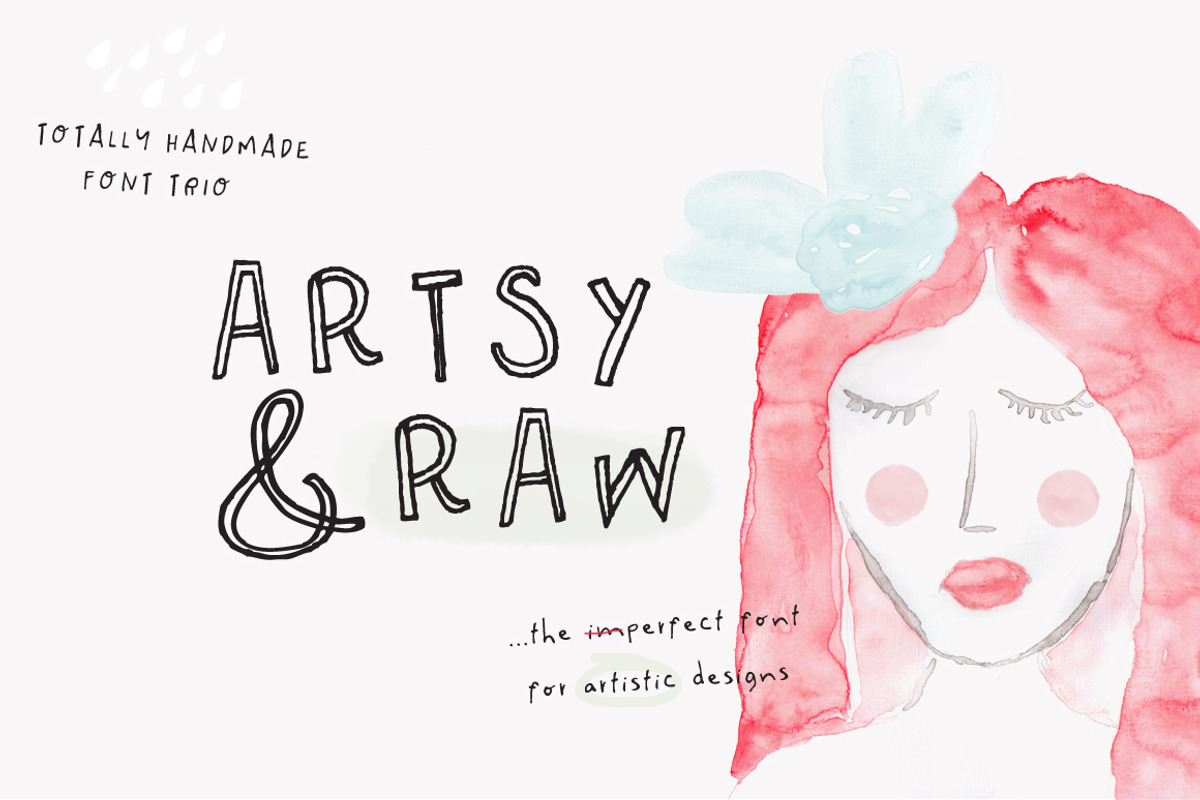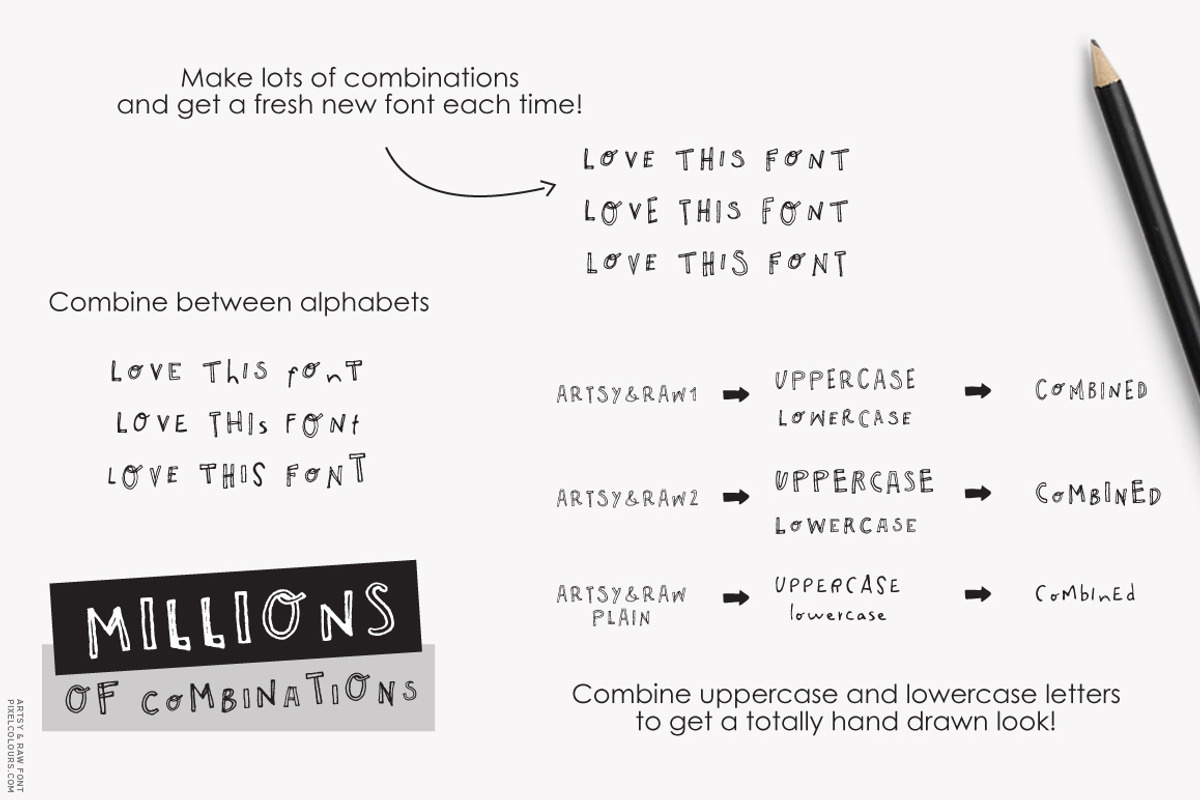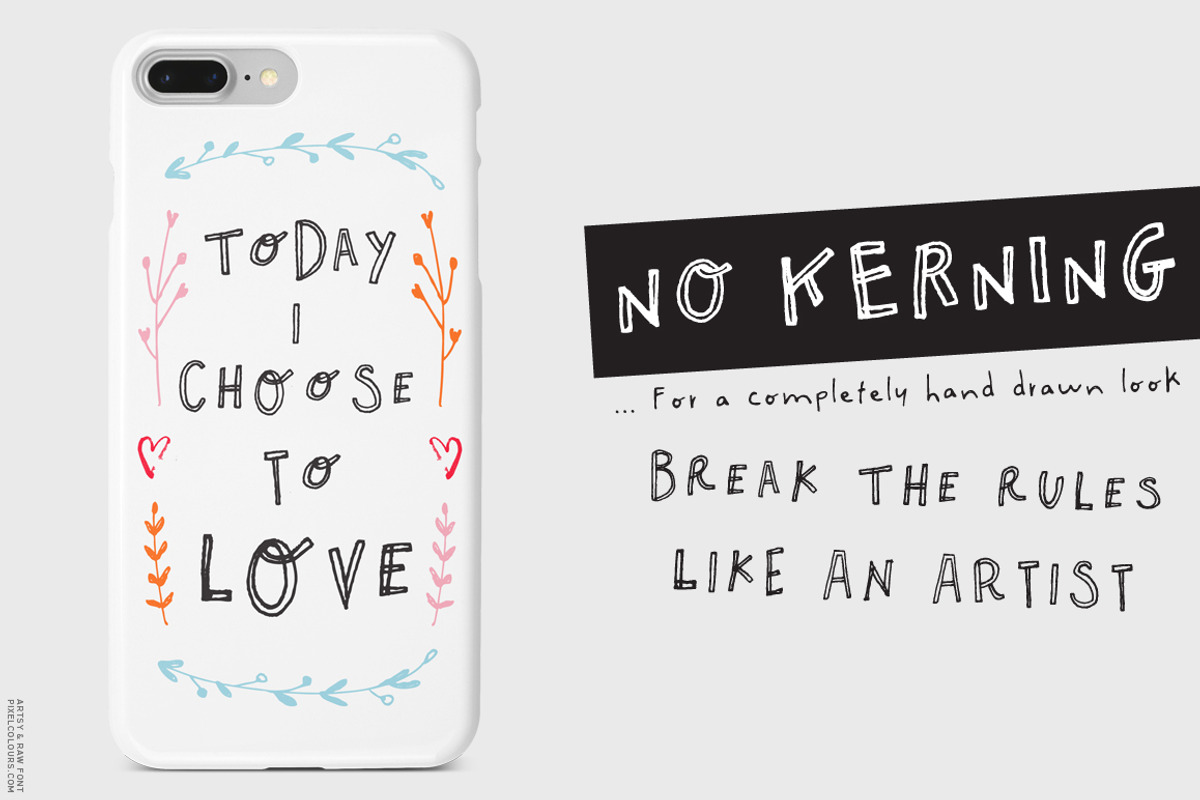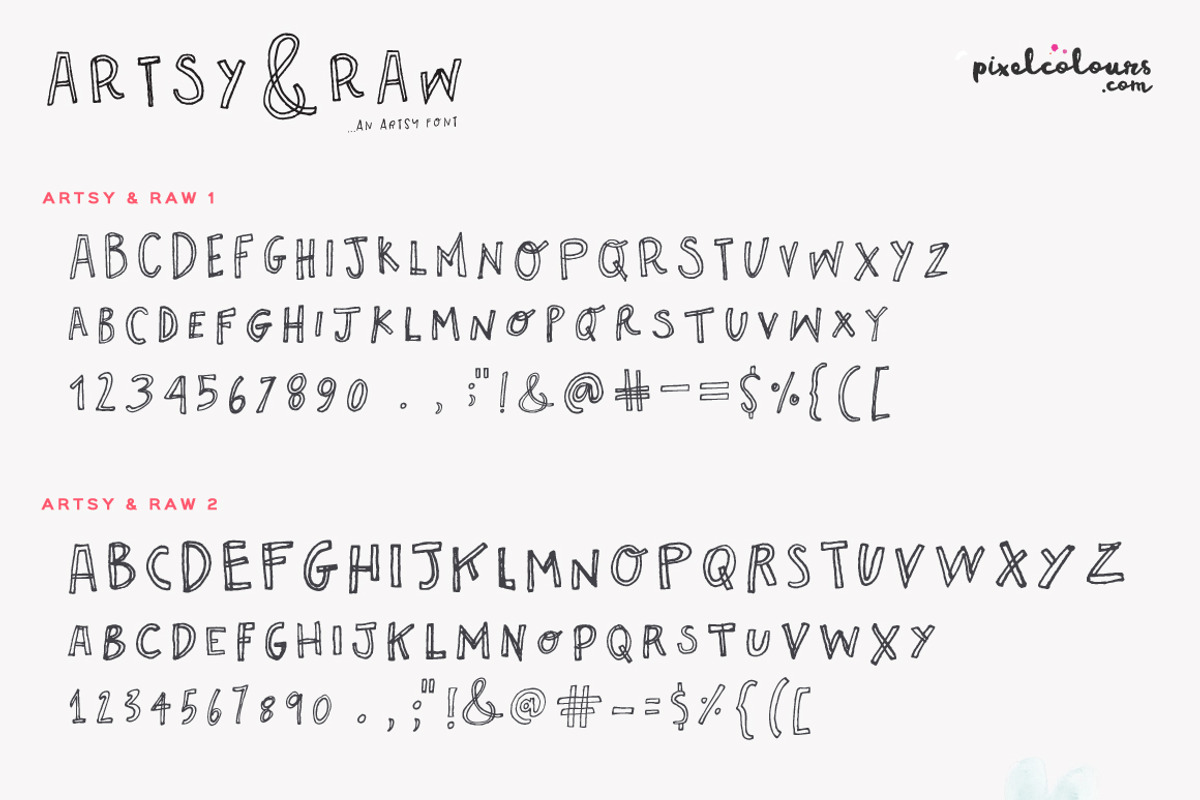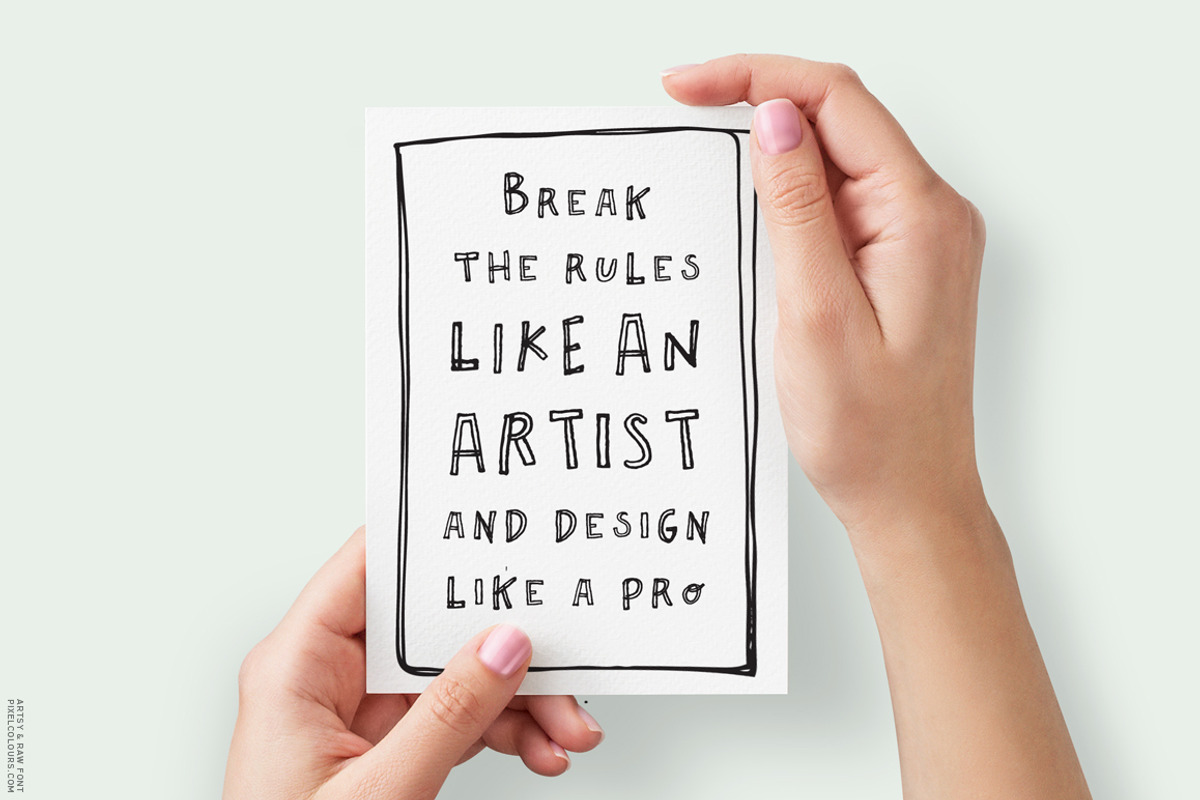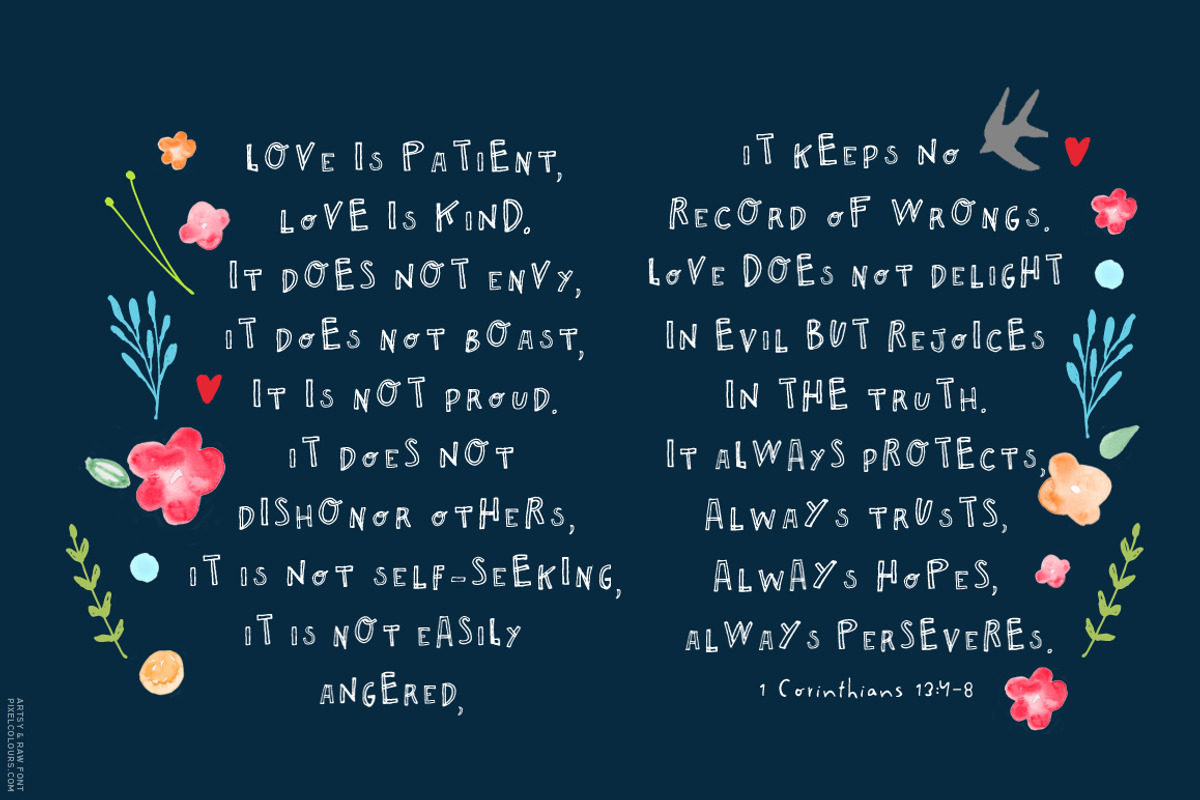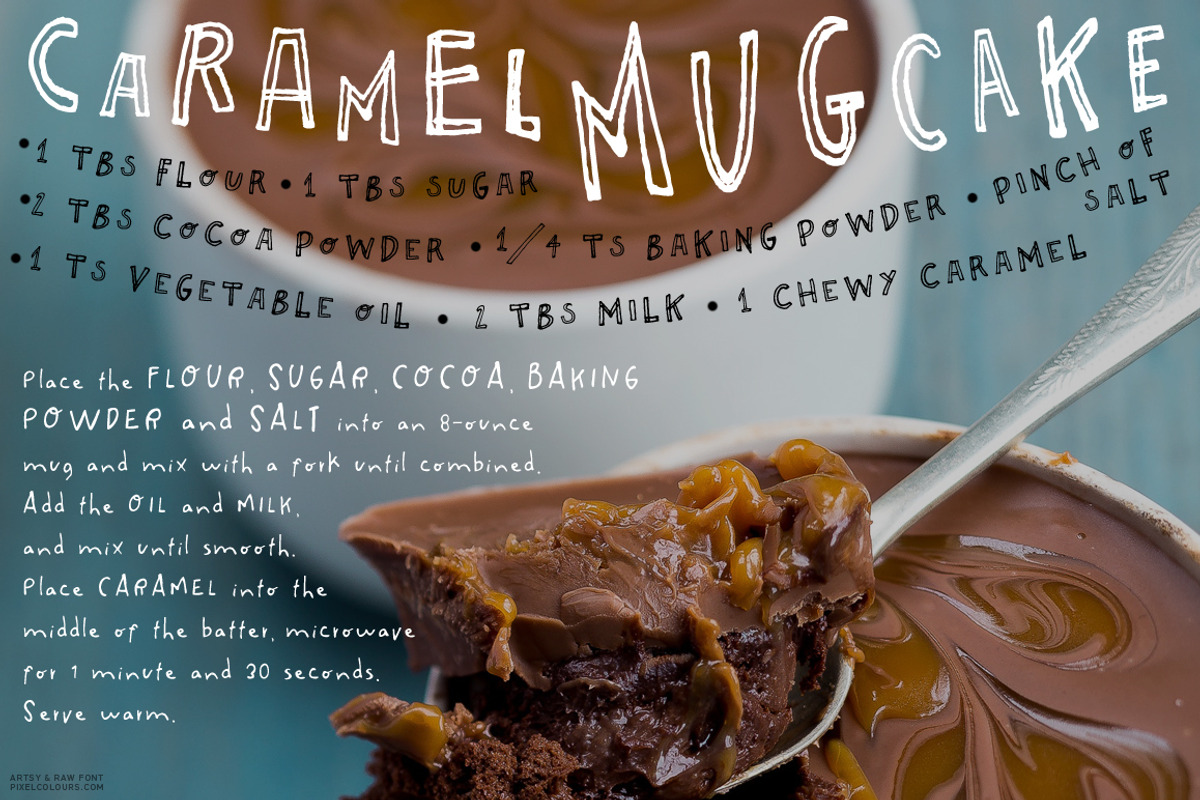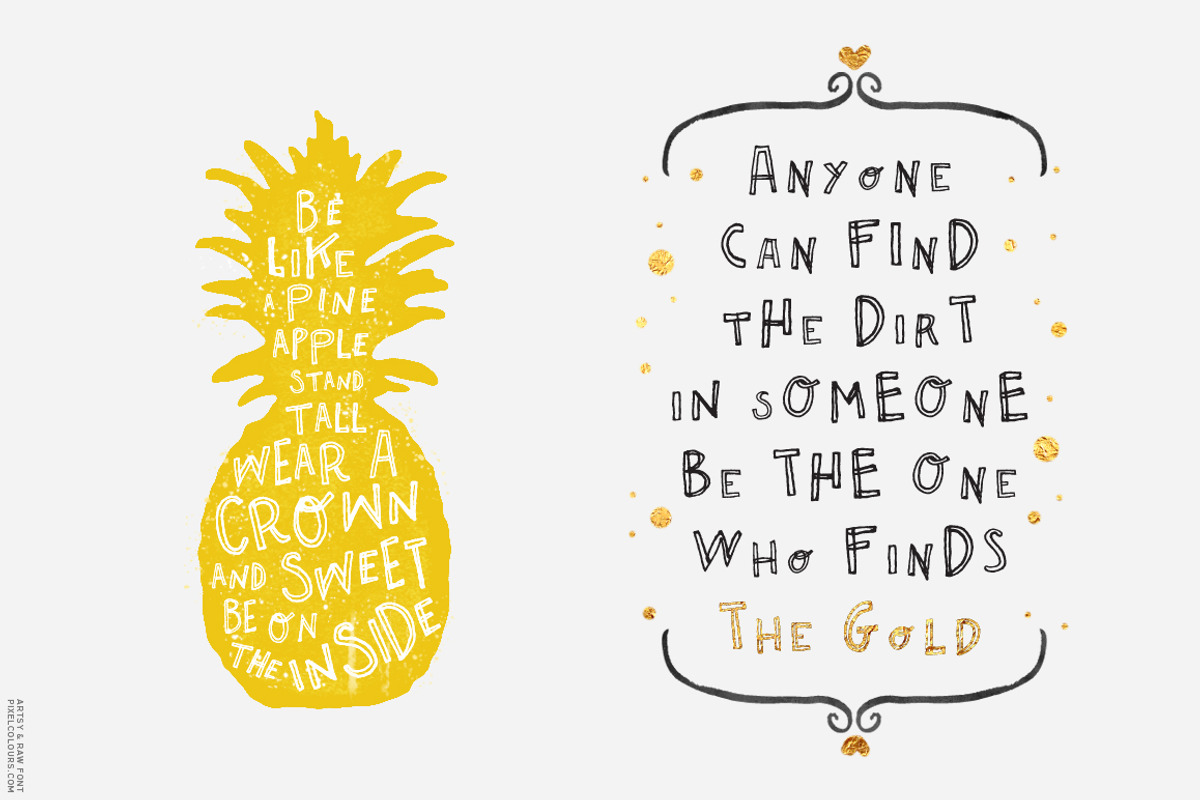
Outline Font - Artsy and Raw
Artsy and Raw is a sweet display font family designed to look absolutely hand drawn. It's so imperfect that is perfect for artistic projects. I'm sure you will love it!
Perfect for quotes, logos, branding, greeting cards, etc.
Artsy and Raw 1
Artsy and Raw 2
Artsy and Raw Plain
Uppercase and lowercase characters, numbers and punctuation